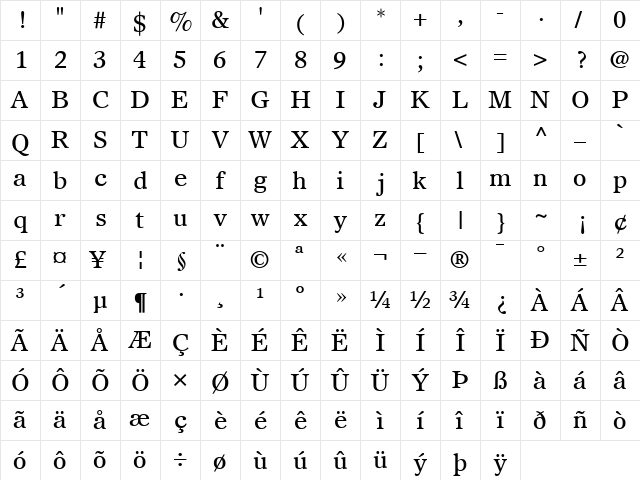
OlympianRoman Roman
Design Context for OlympianRoman Typeface
OlympianRoman is a composed and adaptable typeface that performs quietly and consistently across a wide range of design contexts.